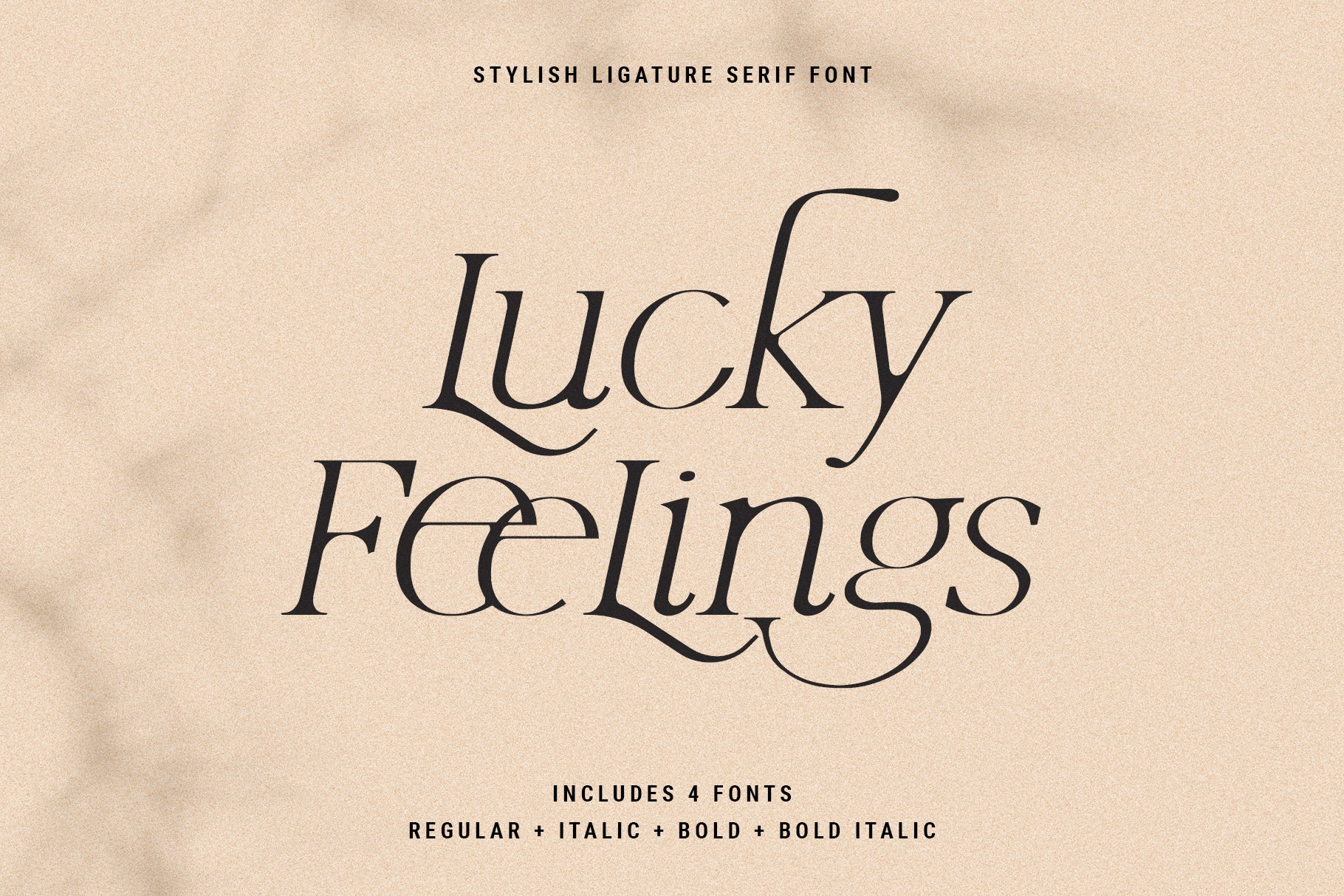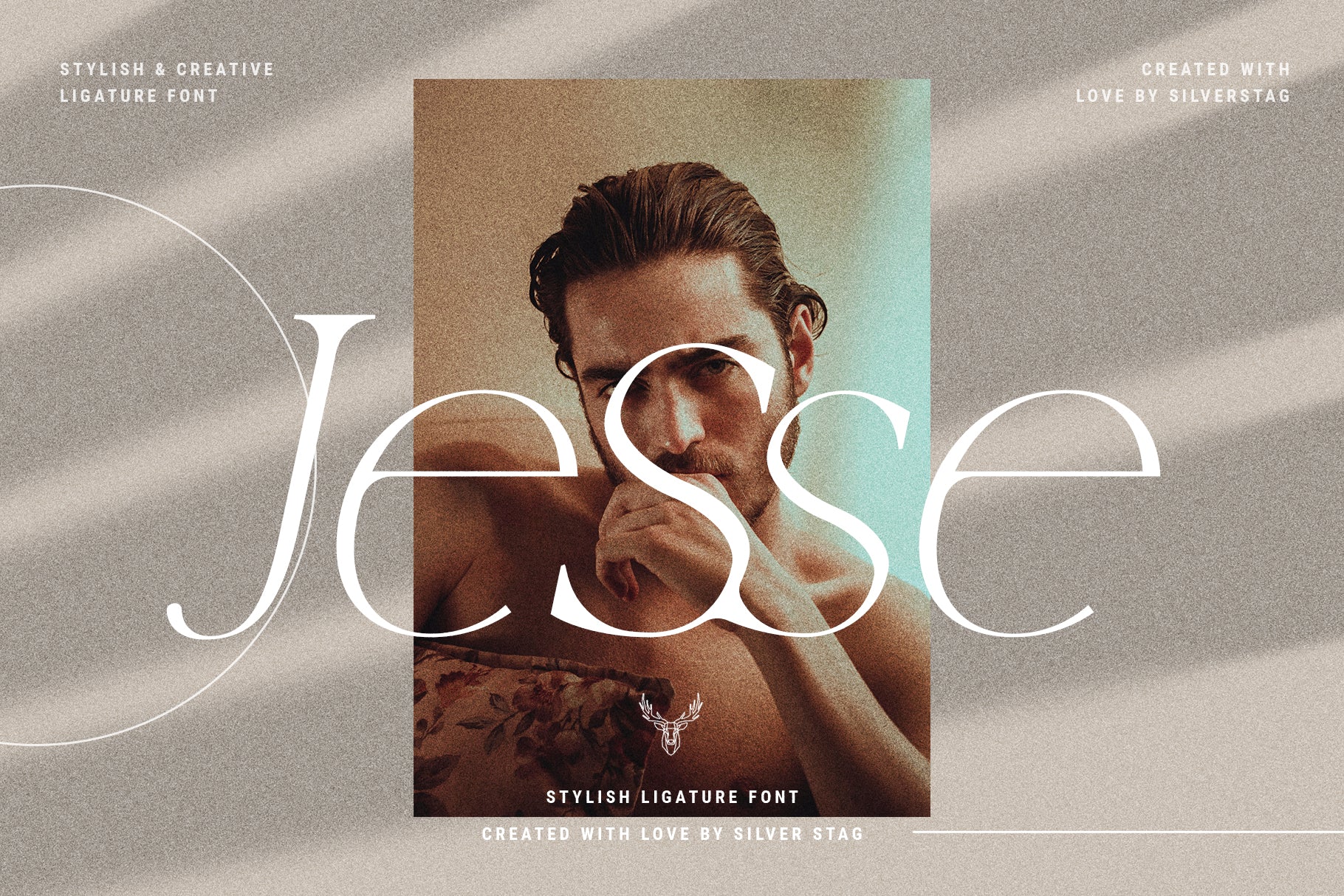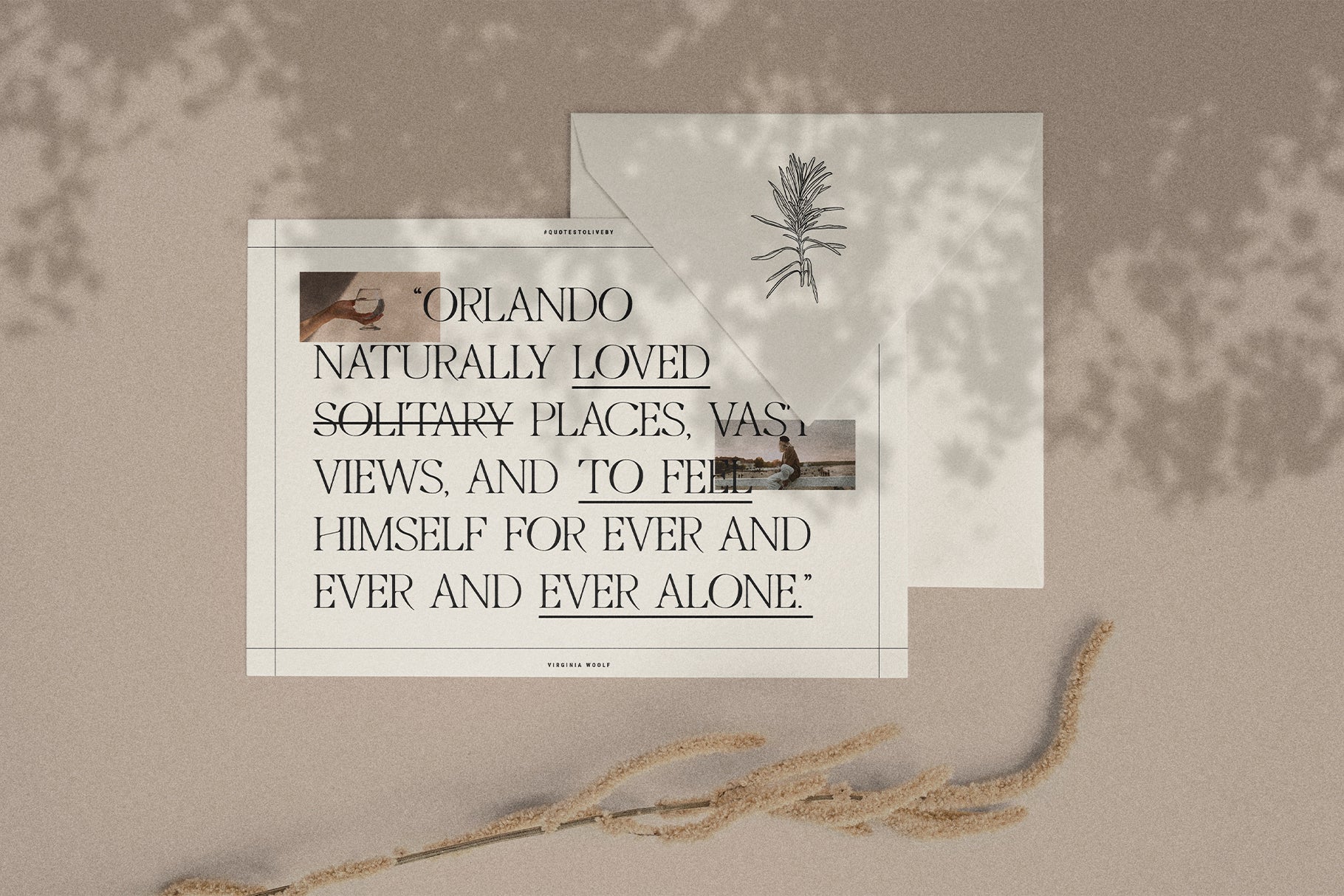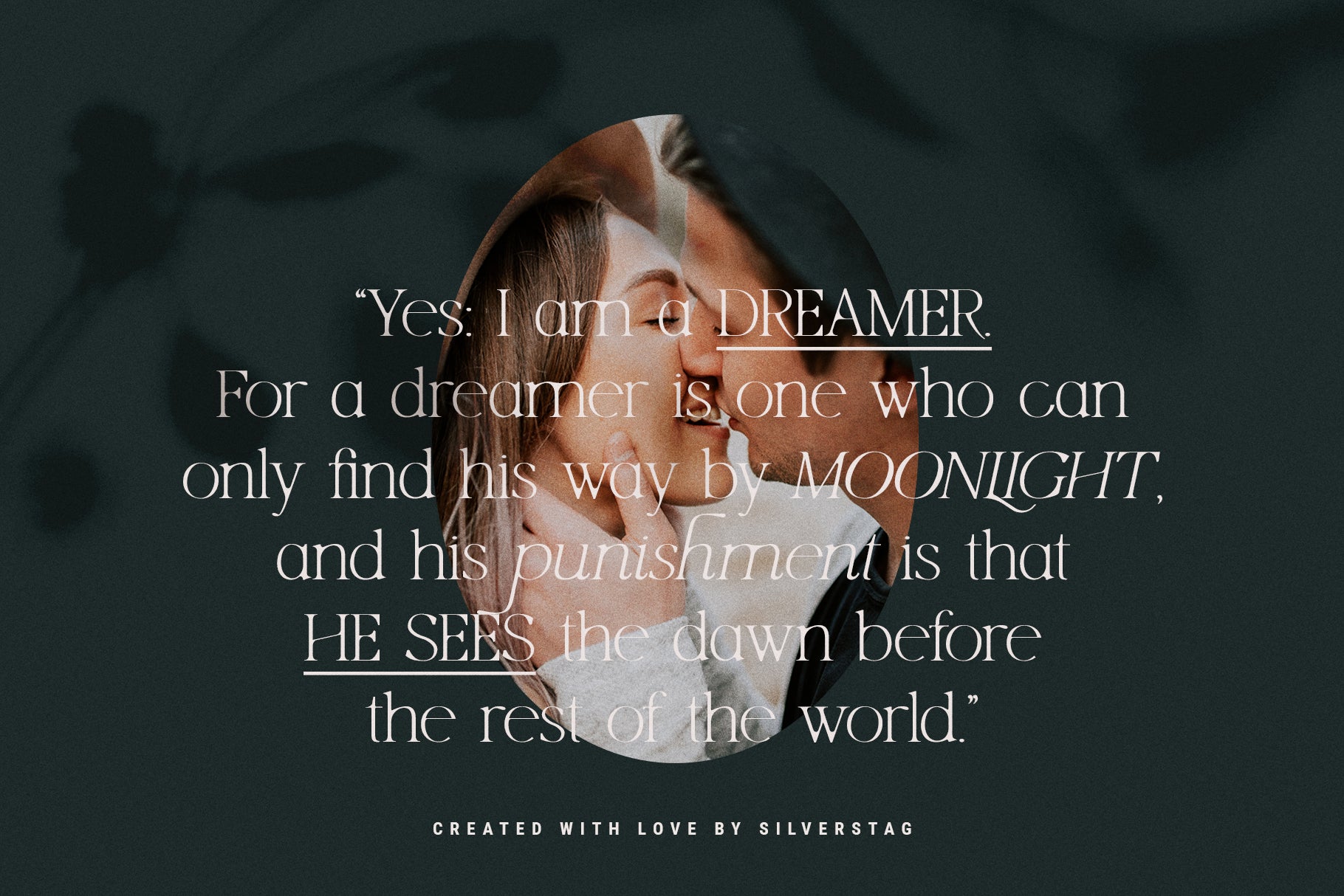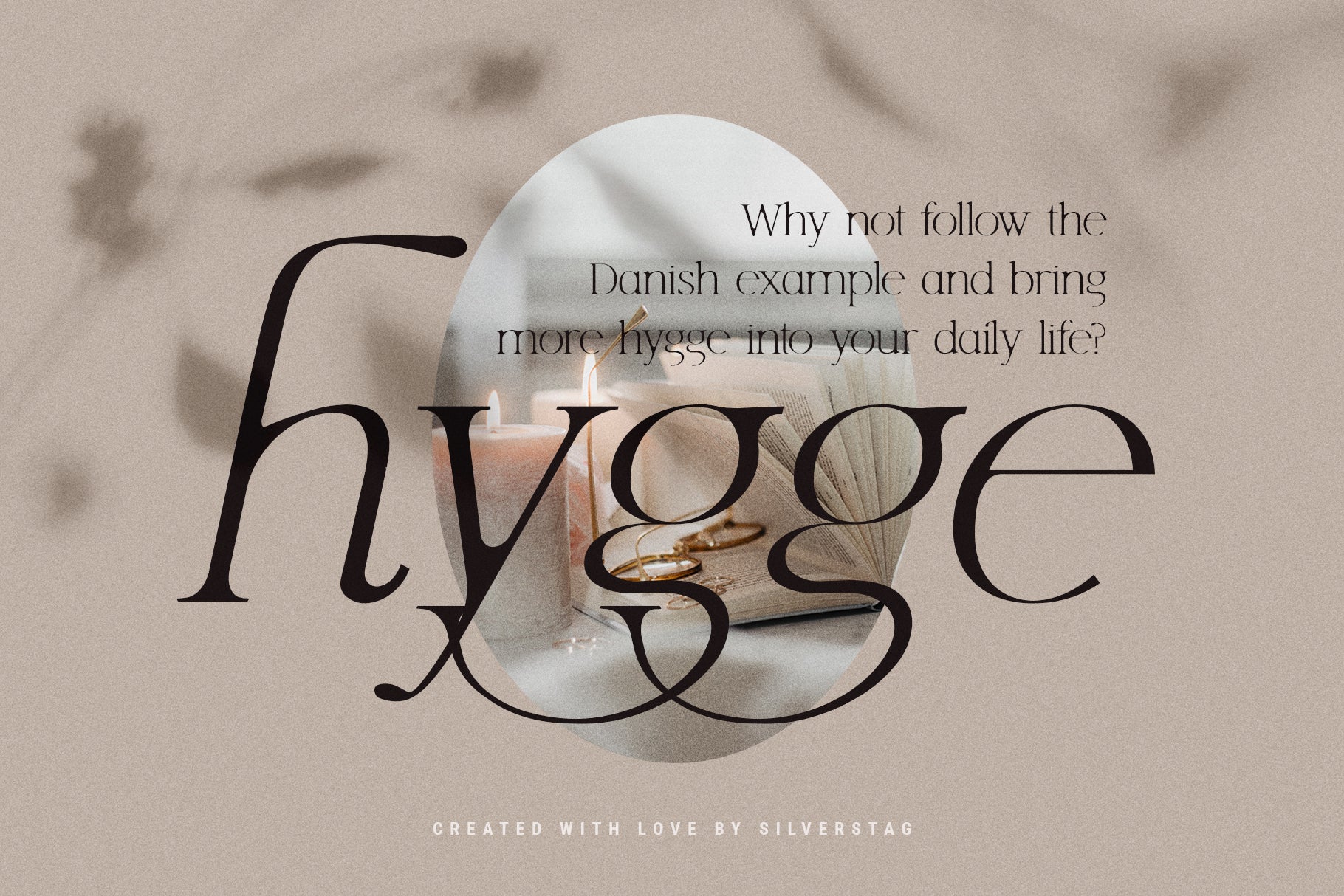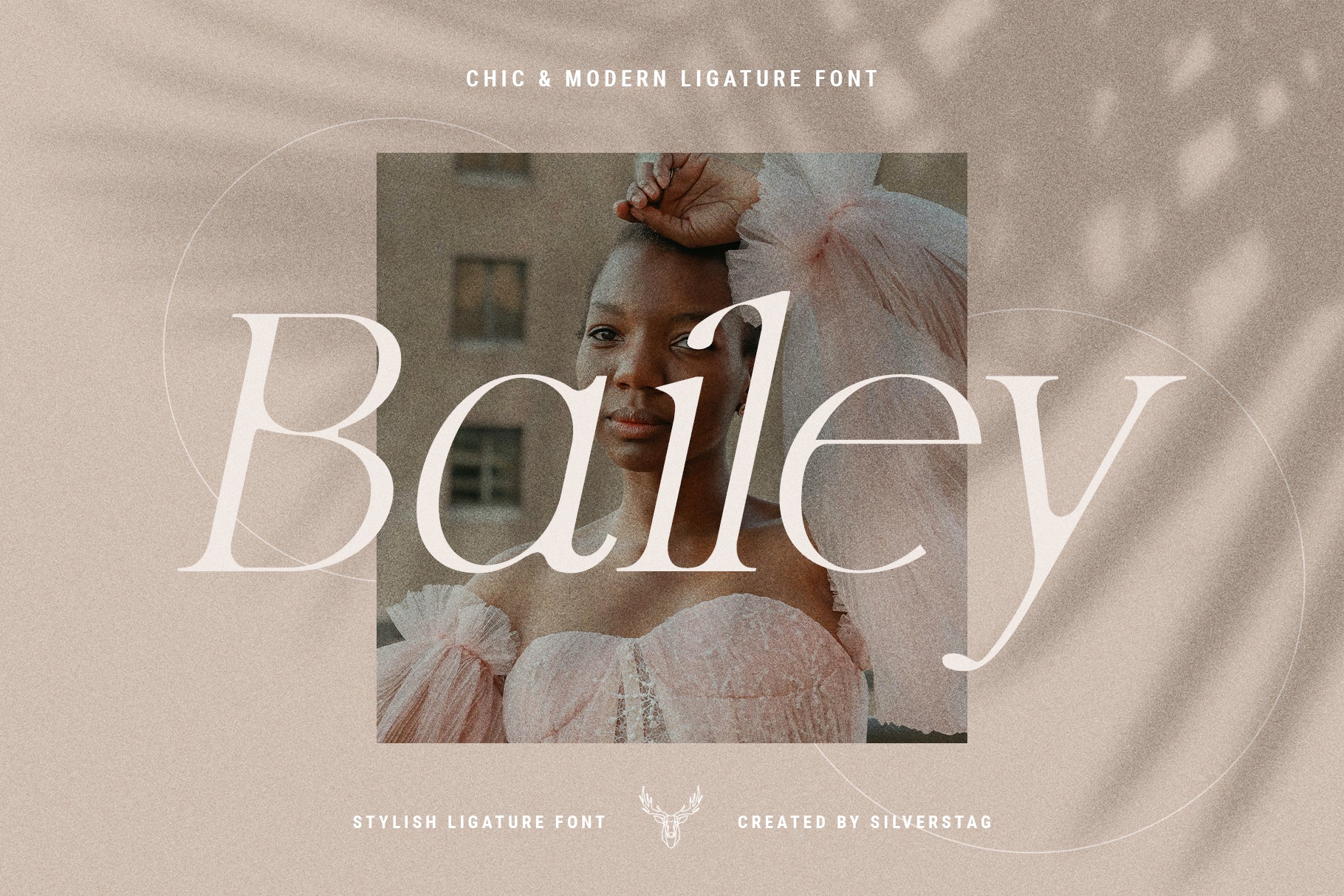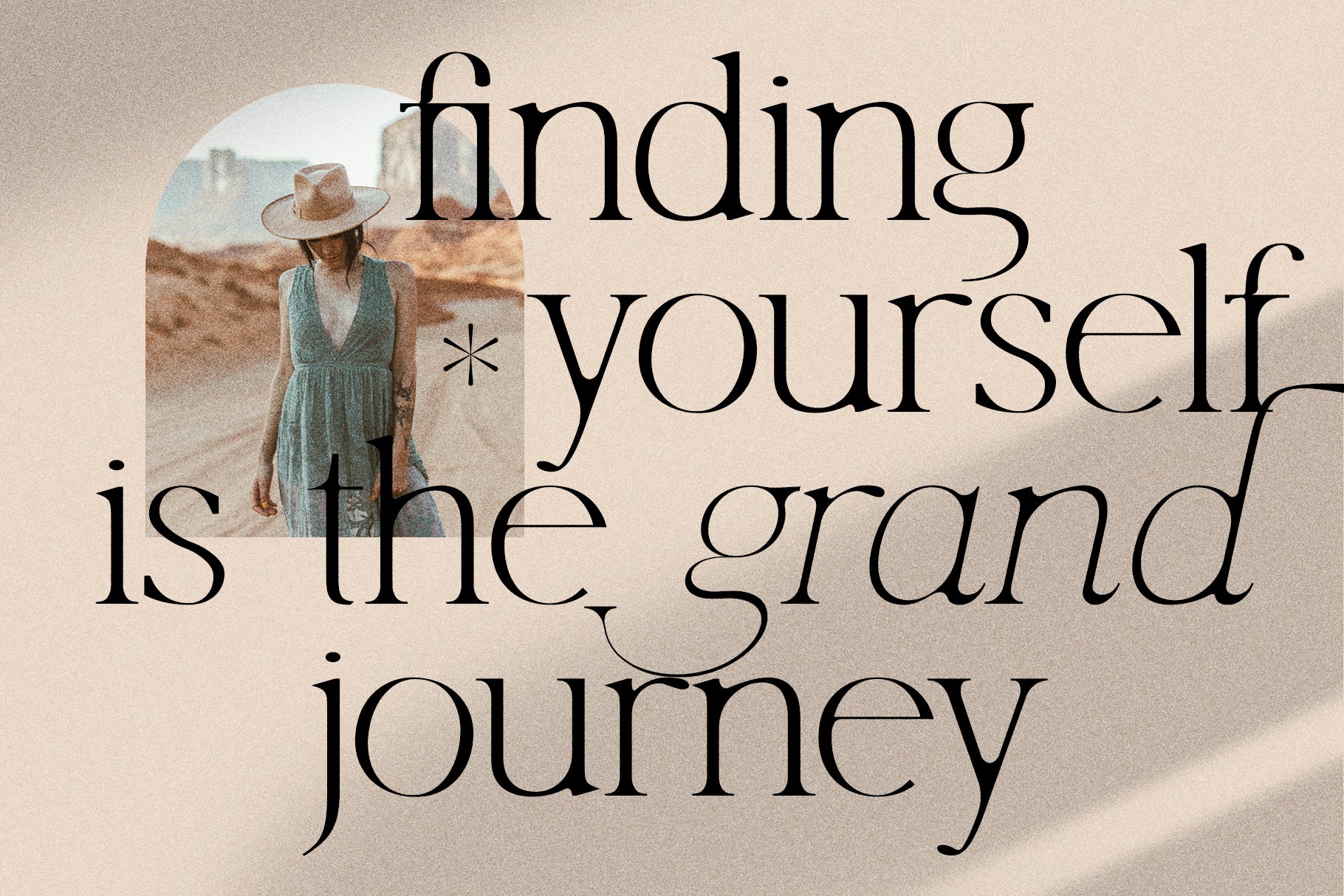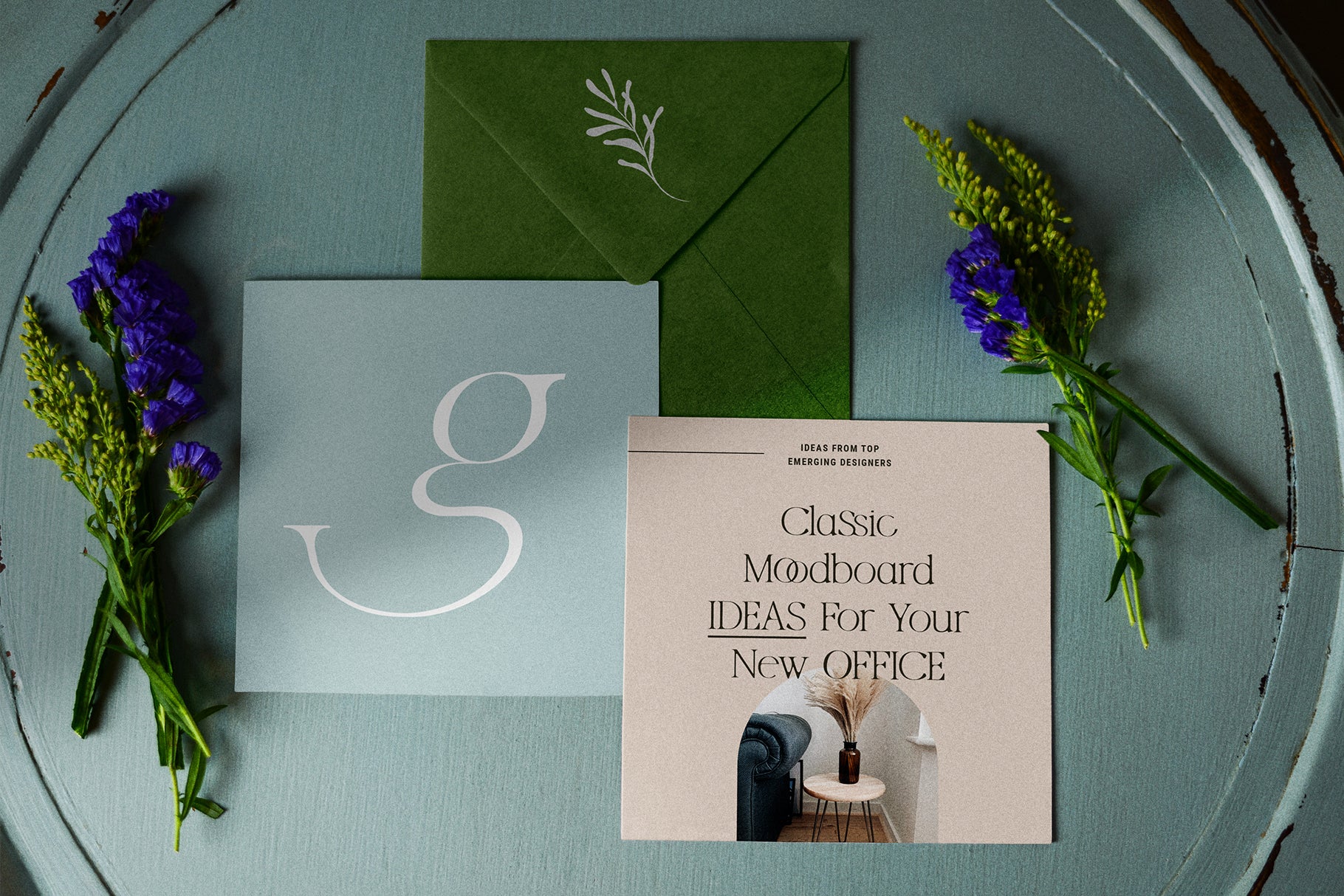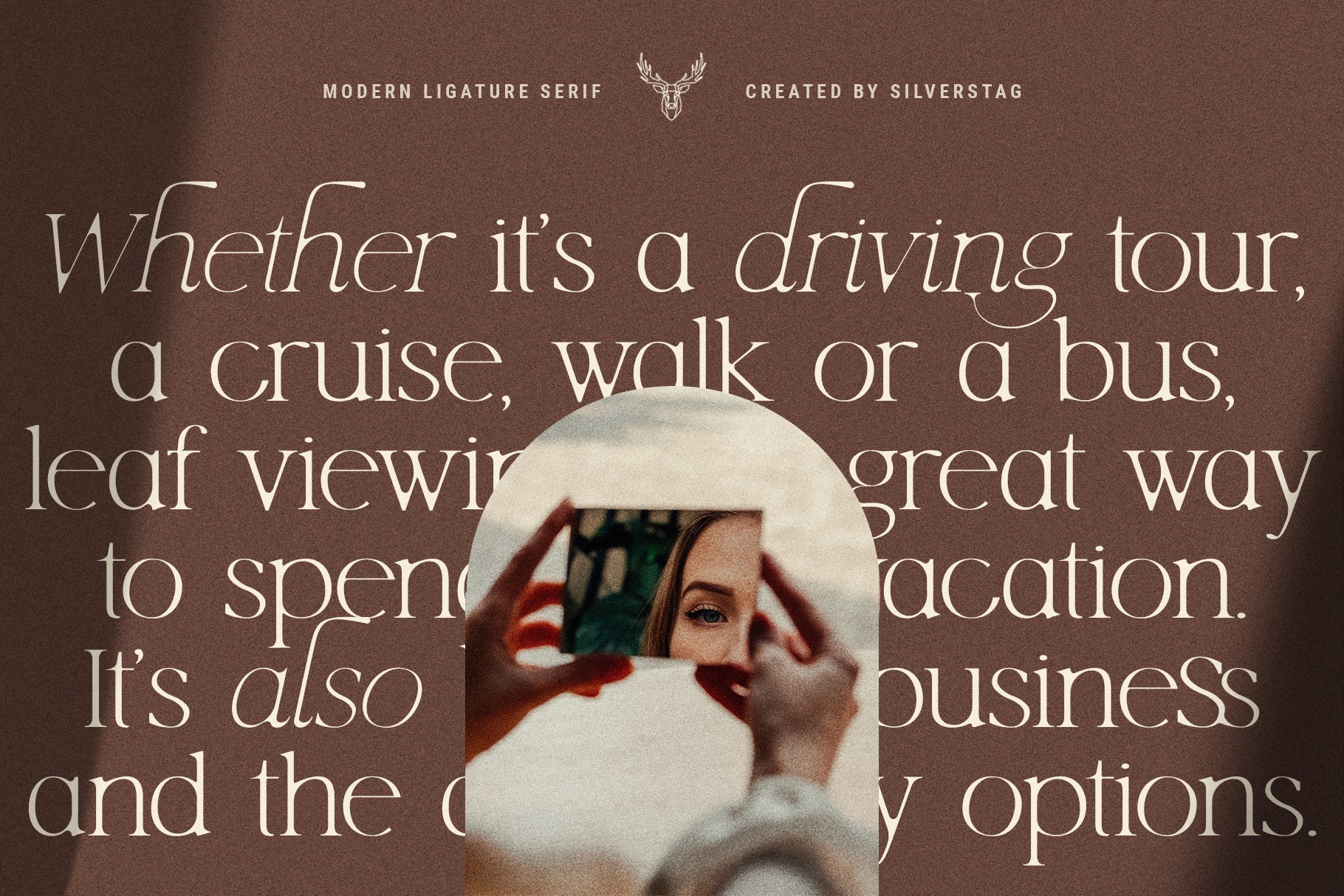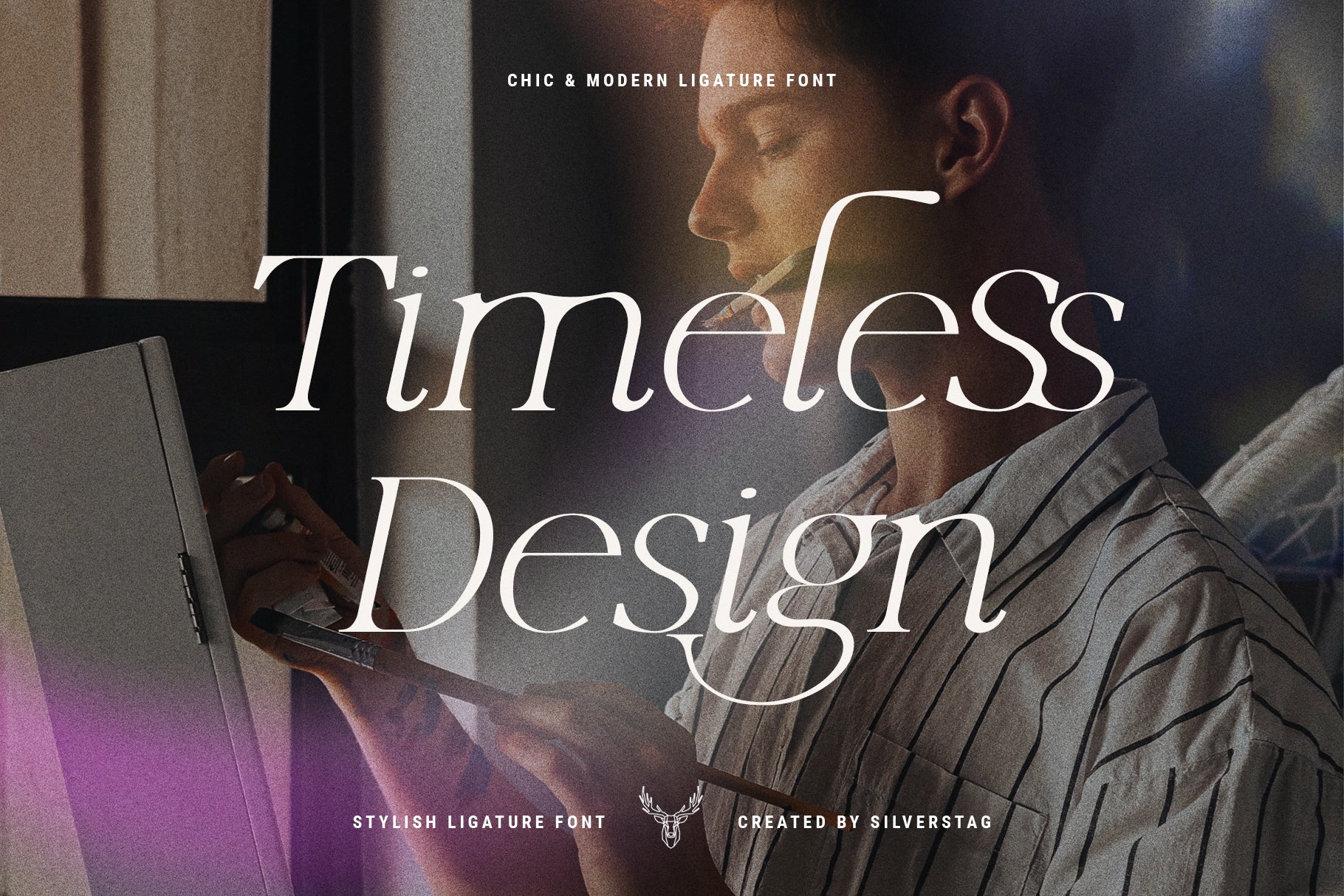
Lucky Feelings is a unique reinterpretation of the classic serif, designed for creatives who want their work to feel fresh, expressive, and confidently stylish. This elegant serif font family includes four distinctive styles—Regular, Italic, Bold, and Bold Italic—giving you the freedom to layer, contrast, and compose typography that feels fully your own.
With subtly unconventional letterforms and thoughtfully crafted ligatures, Lucky Feelings elevates any design it touches. It’s the perfect choice for chic logos, stylish social media graphics, wedding stationery, editorial layouts, and modern branding projects. The flexibility of this four-font set allows you to build visual hierarchy and elegance into every composition with ease.
From moody minimalism to expressive flourishes, Lucky Feelings is designed to make your typography stand out—without ever sacrificing readability or grace.